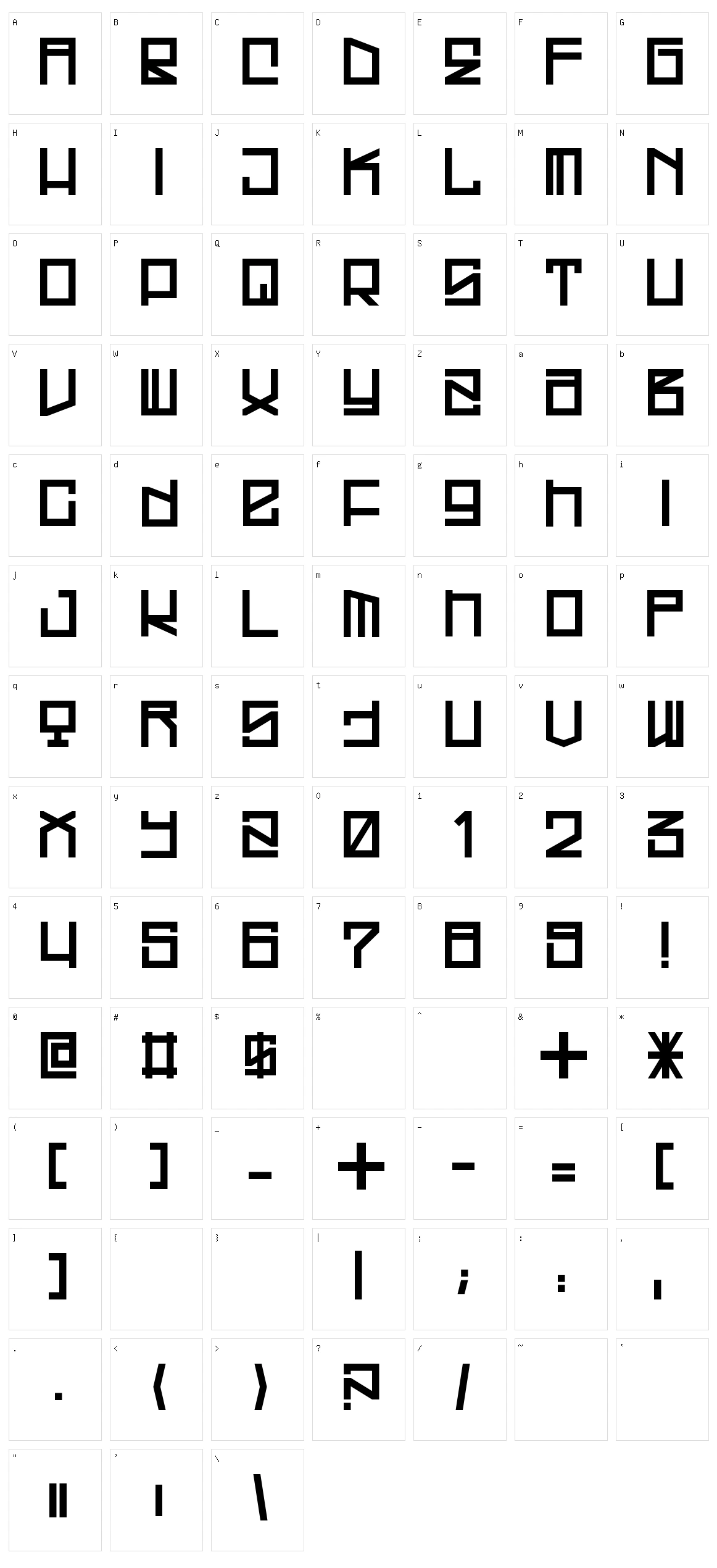
The free font Westrider 2057 is carefully designed by Freehand Profit, showcasing a thoughtful balance of creativity and usability and falls under the Square font style. When you download the ZIP file, it contains only 4.92 KB of font files, making it lightweight and quick to download. Please review the license details below to understand permitted usage and distribution rights. If license information is not available, we recommend using this font for personal projects only or contacting the author directly for commercial usage permissions.